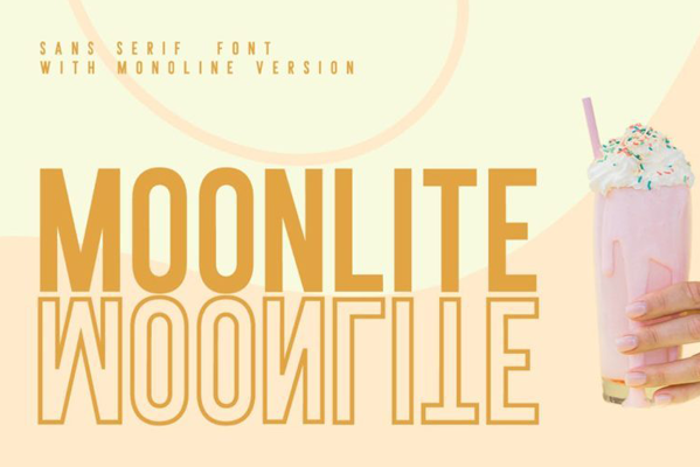
Moonlite Solid Font
Moonlite is a modern display sans serif font for any professional project brandings, such as social media campaigns, ads, cards, merchandise, and so on. Every letter has a unique and beautiful touch. It is also available with an outline version.
Features include:
• Ligatures
• Stylistic Sets
• Multilingual Supports
• PUA Encoded
• Numerals and Punctuations